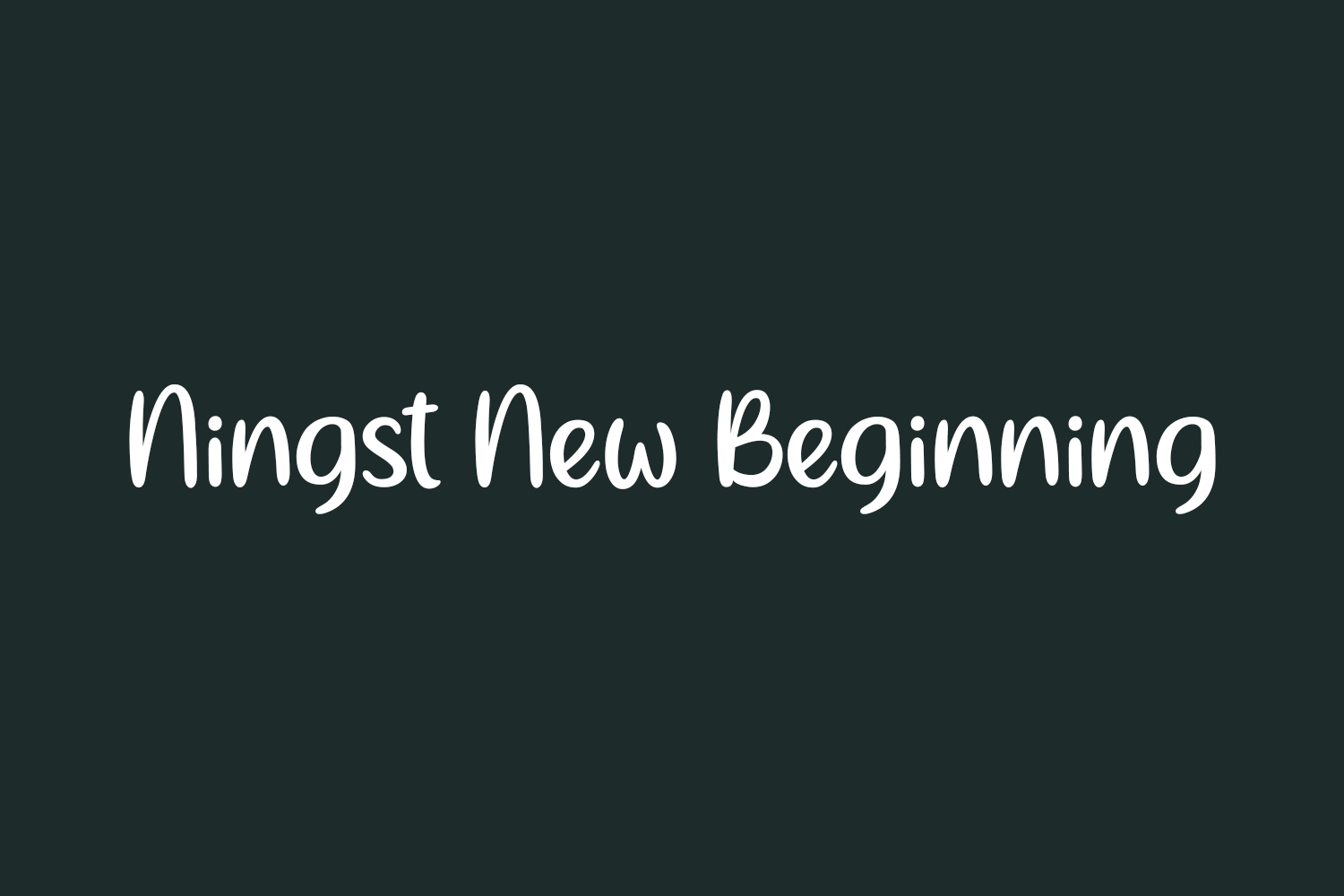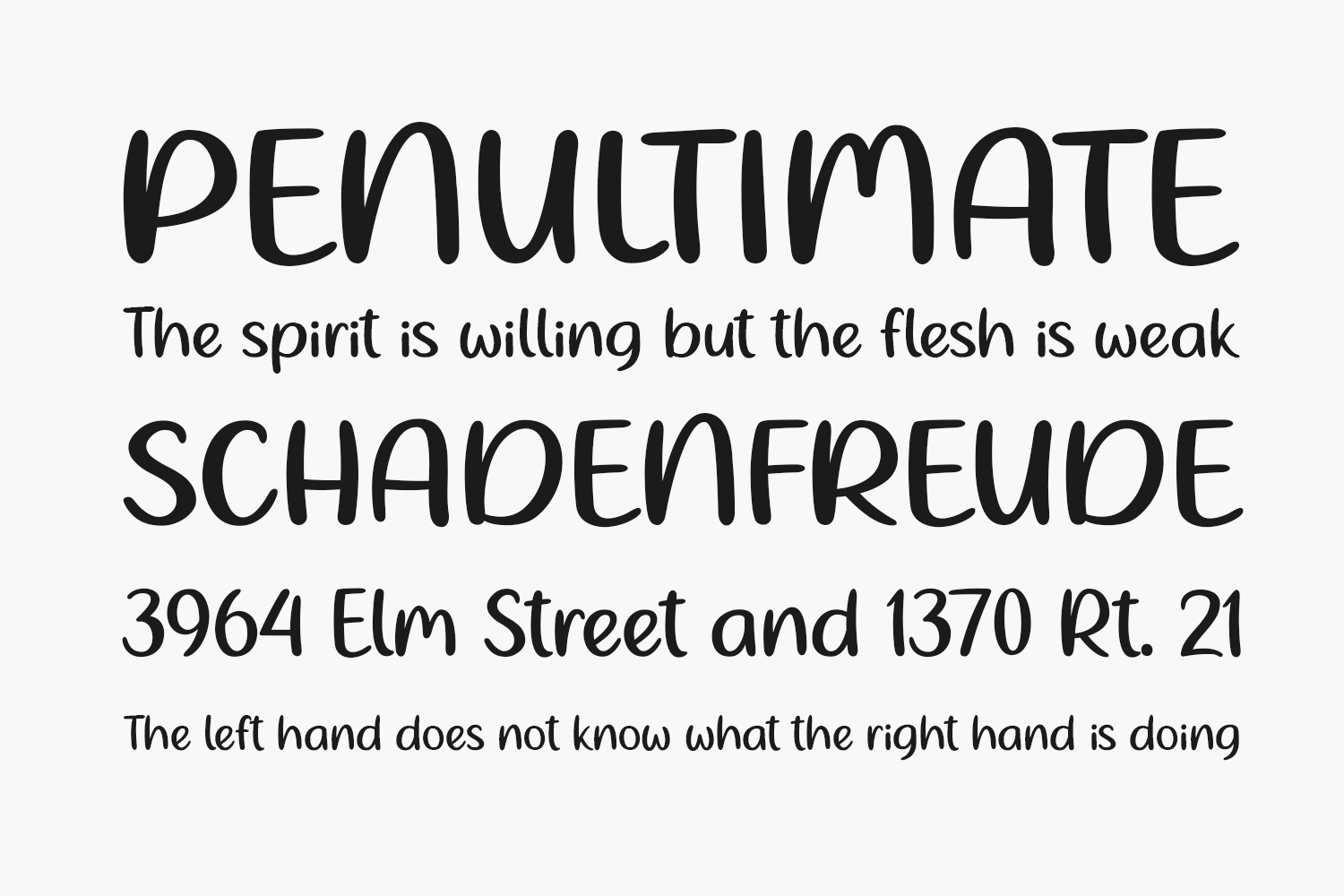
Ningst New Beginning Free Font is a beautiful and graceful script font that adds a touch of elegance to any design project. Its lovely, delicate letterforms are inspired by the fluidity of calligraphy, and its timeless appeal makes it a versatile choice for everything from wedding invitations to branding materials. Perfect for anyone looking to add a touch of sophistication to their work, Ningst New Beginning is a font that promises to bring a fresh start to any design.